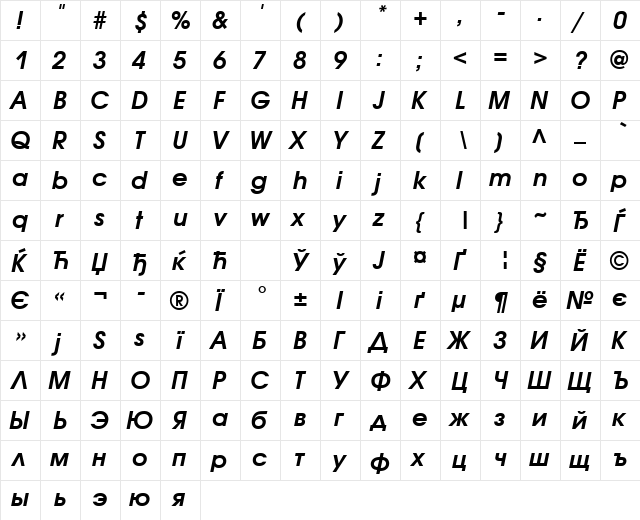
AvantGardeGothicCTT BoldItalic Font Preview
AvantGardeGothicCTT BoldItalic
Design Context for AvantGardeGothicCTT Typeface
AvantGardeGothicCTT takes a clean, functional approach — its unadorned letterforms prioritise legibility and work reliably across screen and print environments. The slanted form adds forward momentum and visual energy. The heavy weight commands attention and anchors typographic hierarchies.
Well-suited to navigation labels, product packaging, and anywhere legibility at scale is essential.
Font Pairing: Use AvantGardeGothicCTT for headlines alongside a lighter-weight sans or serif for body copy to establish clear visual hierarchy.
Pro Tip: Use AvantGardeGothicCTT for UI labels, navigation, and short-form body copy where clean legibility is the priority.